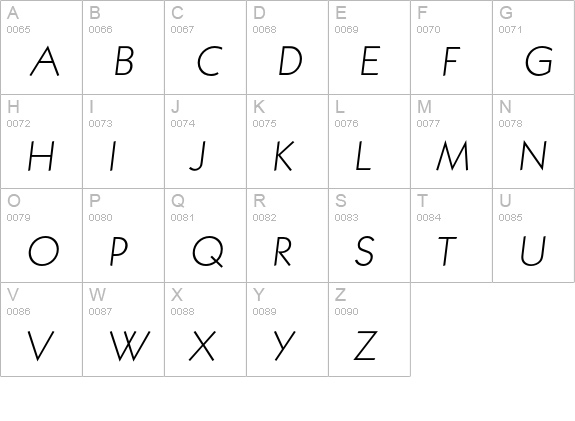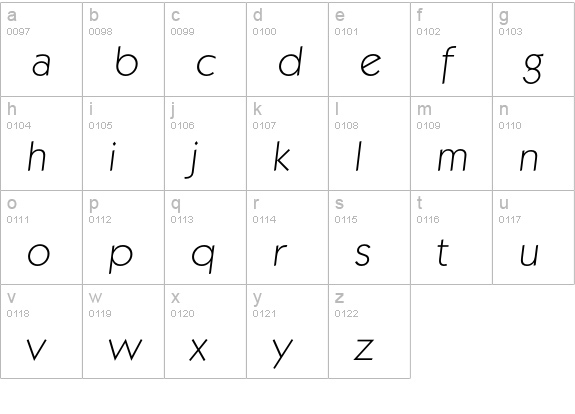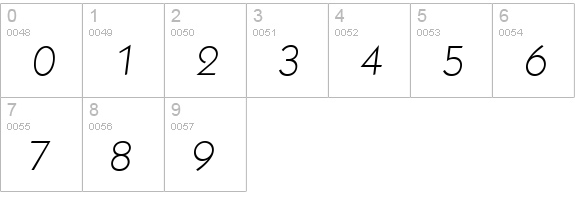
Koblenz-XlightIta Font Details
Koblenz-XlightIta is a sleek and modern font that exudes elegance and sophistication. With its delicate and slender design, this typeface is perfect for adding a touch of refinement to any project. The light italic style of Koblenz-XlightIta adds a subtle sense of grace and fluidity, making it ideal for conveying a sense of sophistication and style. What's even better is that Koblenz-XlightIta is completely free to download at FontsMarket.com. This means you can easily access this beautiful font and use it in all your design projects without any cost. Whether you're working on a professional presentation, a creative branding project, or a personal invitation, Koblenz-XlightIta is sure to add a touch of elegance and flair to your work. Download it now and elevate your designs with this stunning typeface.